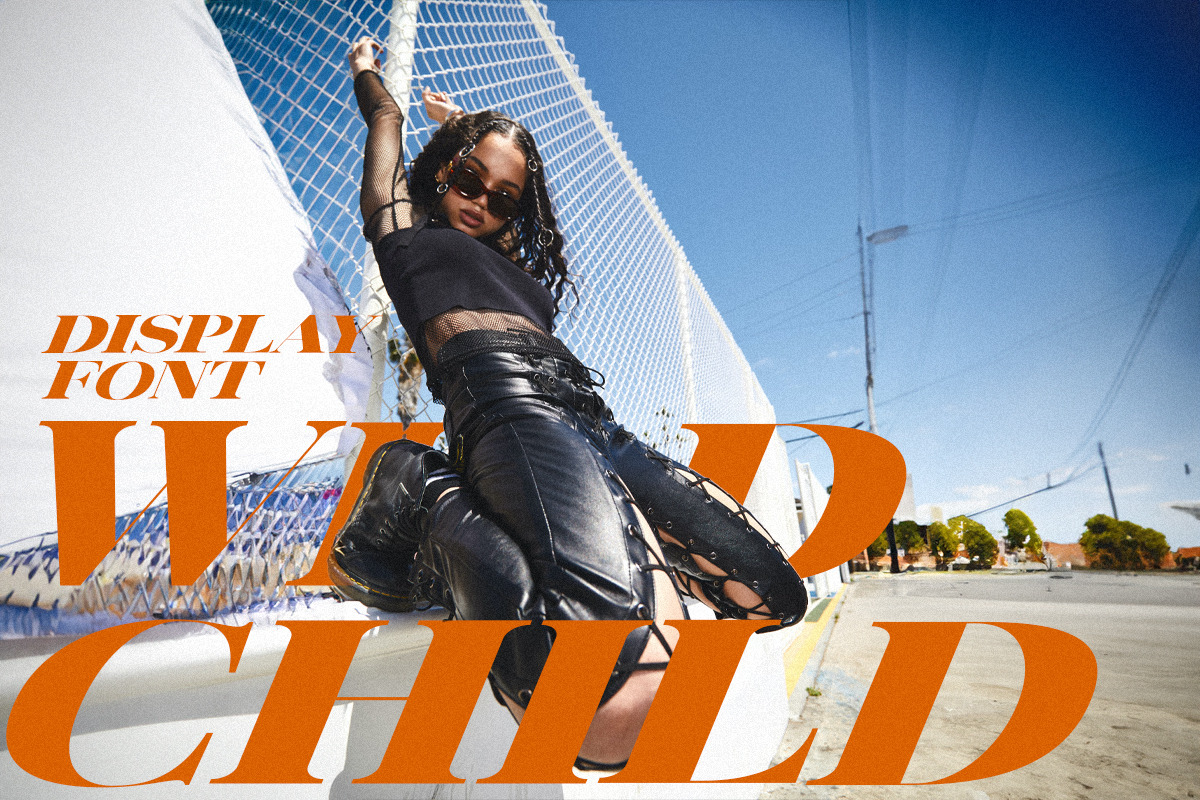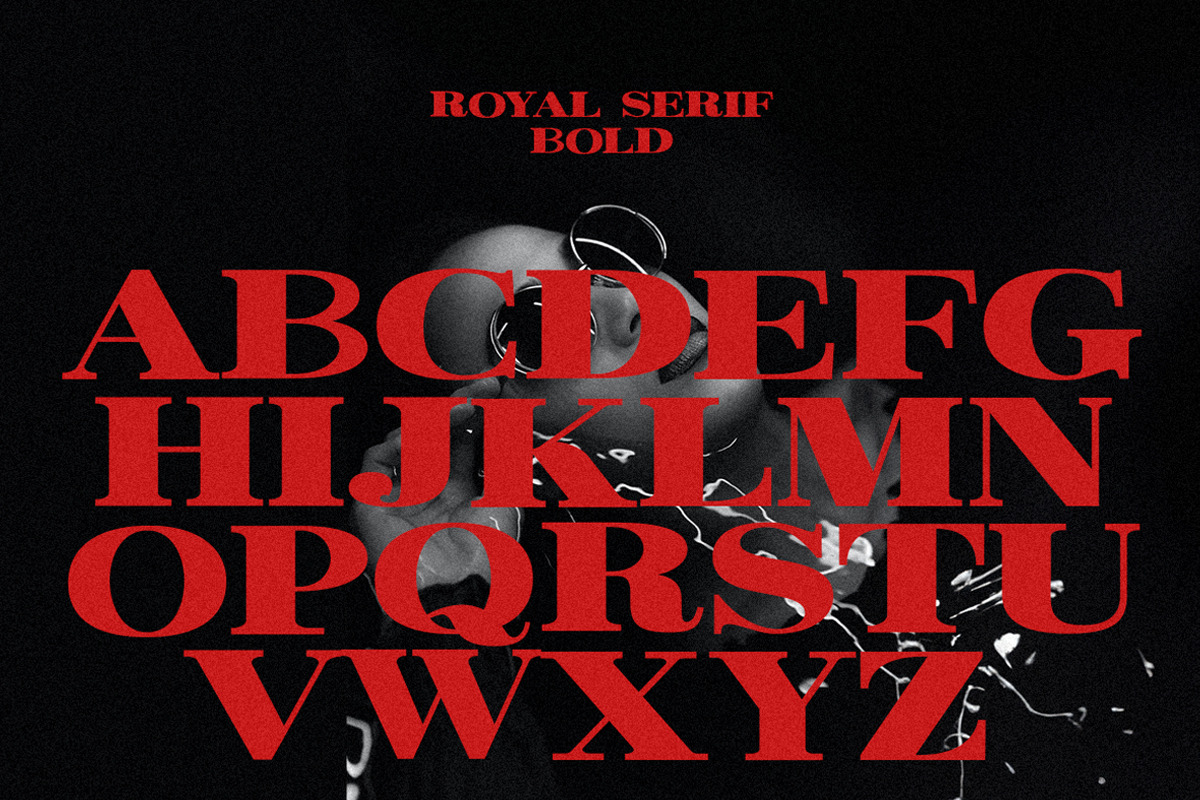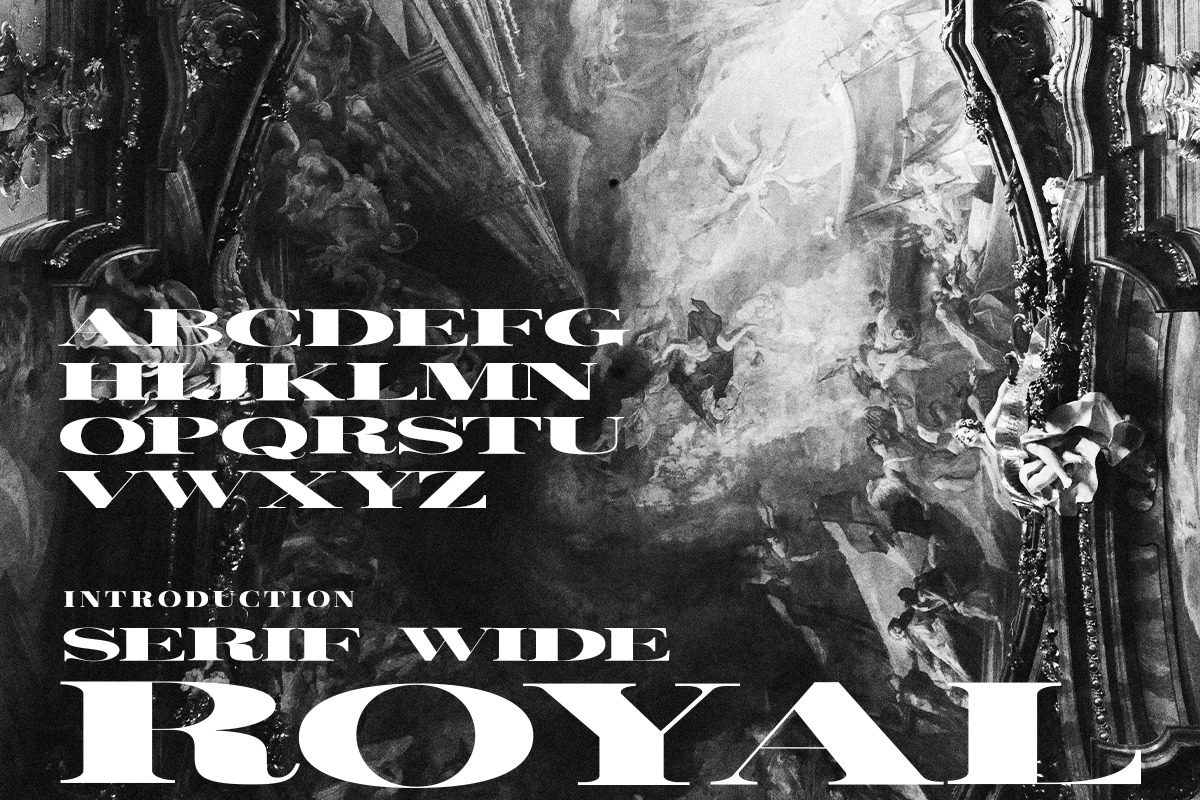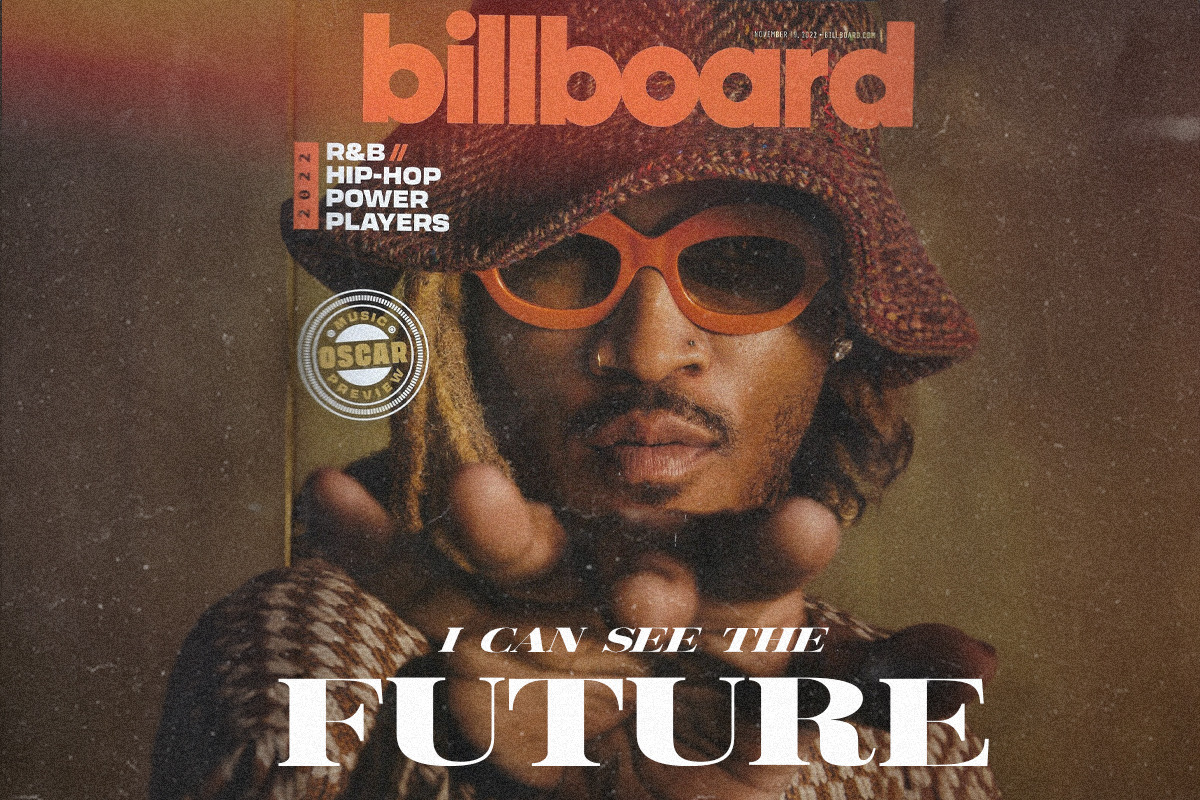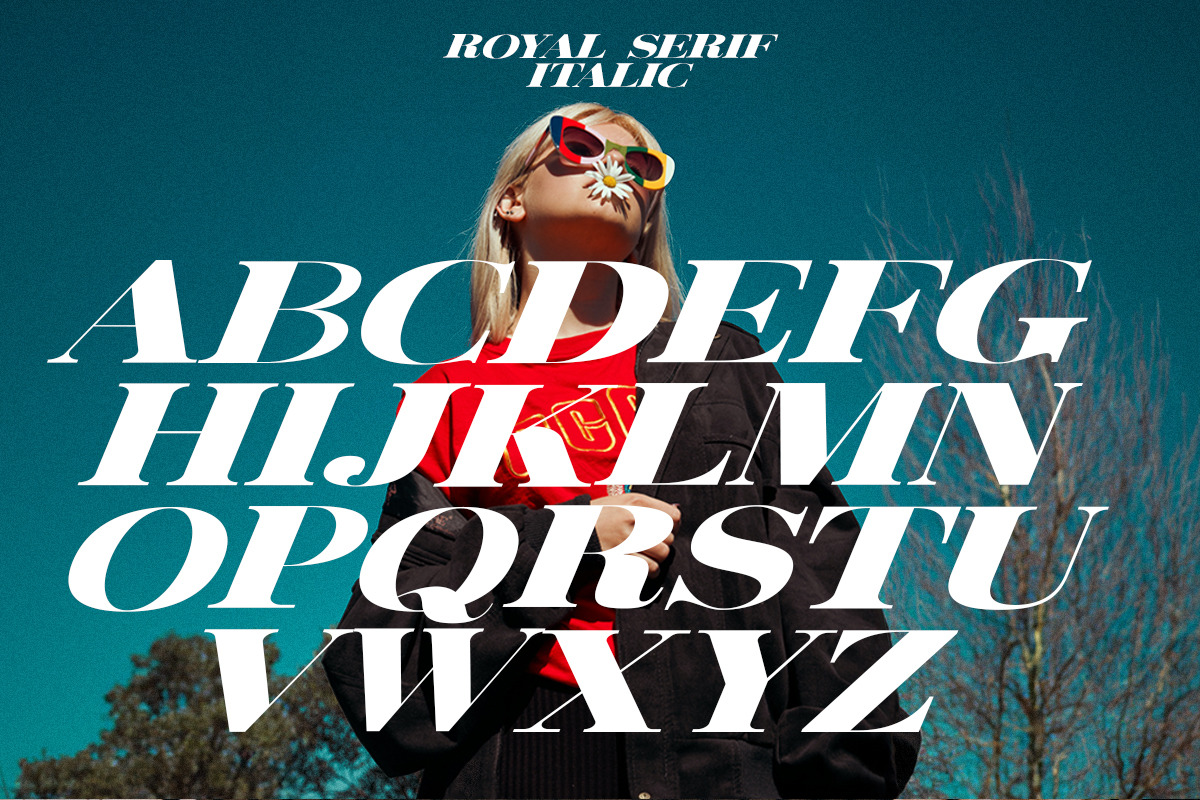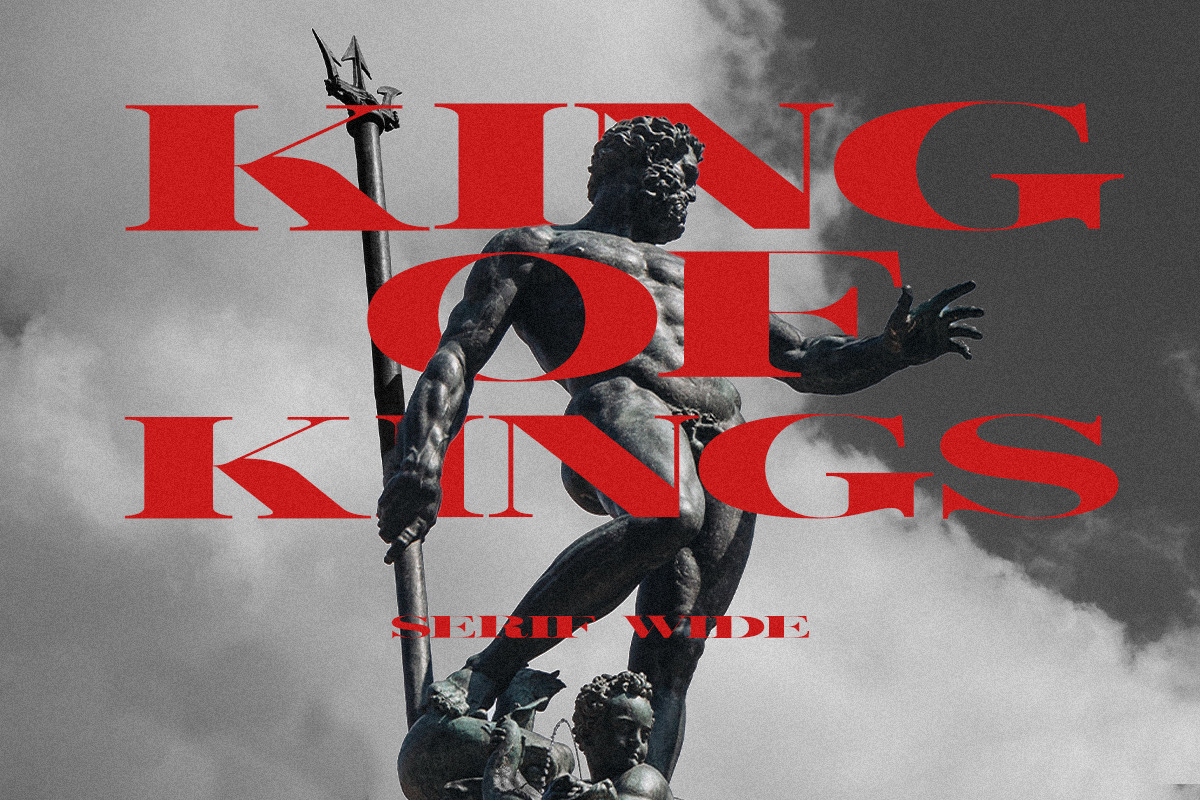
Royal Serif Display Font
Introducing Royal Serif Font: Elevate Your Typography to a New Level of Elegance
Discover the epitome of sophistication in typography with our Royal Serif Font. Crafted with meticulous attention to detail, this font is your gateway to unparalleled elegance and timeless style.
Immerse your designs in the regal charm of Royal Serif. Its graceful serifs and impeccable letterforms exude an aura of class and refinement, making it the perfect choice for those seeking to captivate and inspire their audience. Whether you're designing invitations, branding materials, or luxurious packaging, Royal Serif adds an air of prestige that sets your work apart.